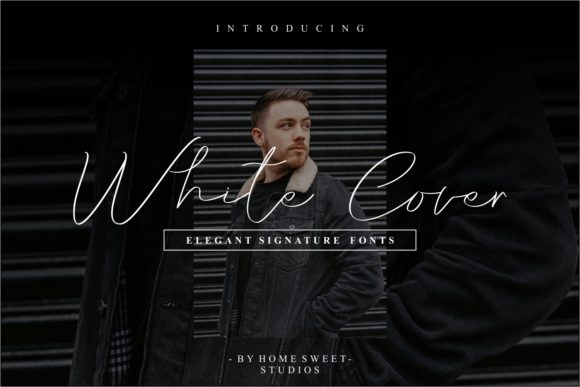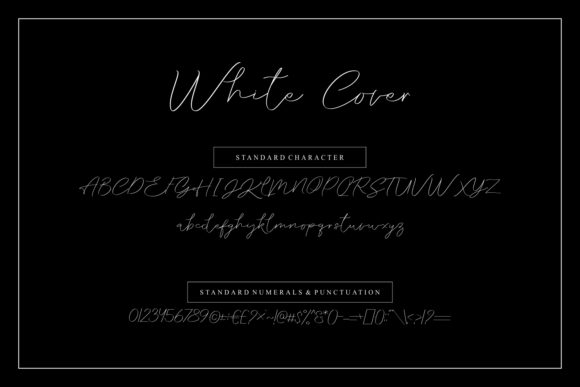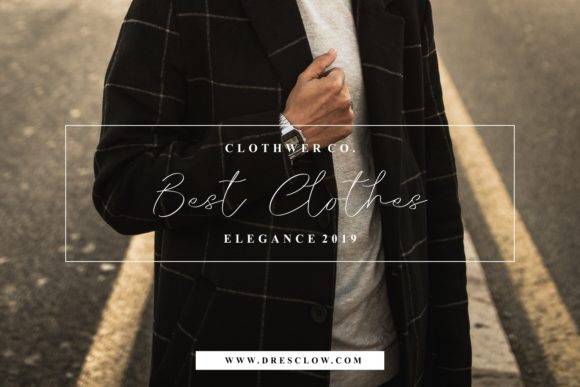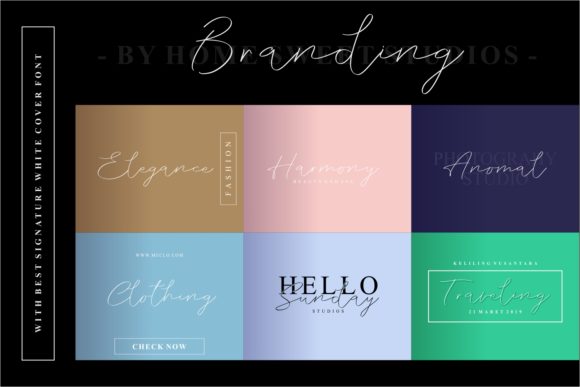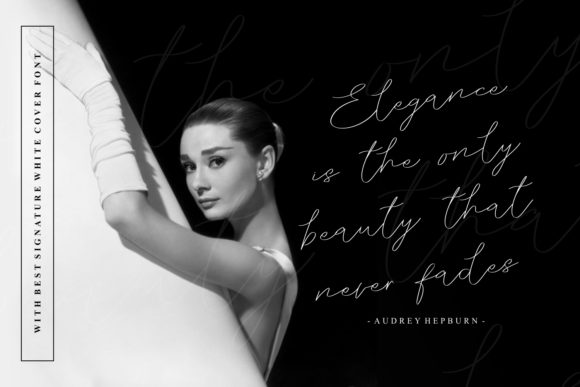
White Cover Font
About White Cover Font
The White cover is an elegant handwritten font. It can be used to add a natural touch to you fashion designs, logos, brands, magazines, websites, blog headers, and much more!